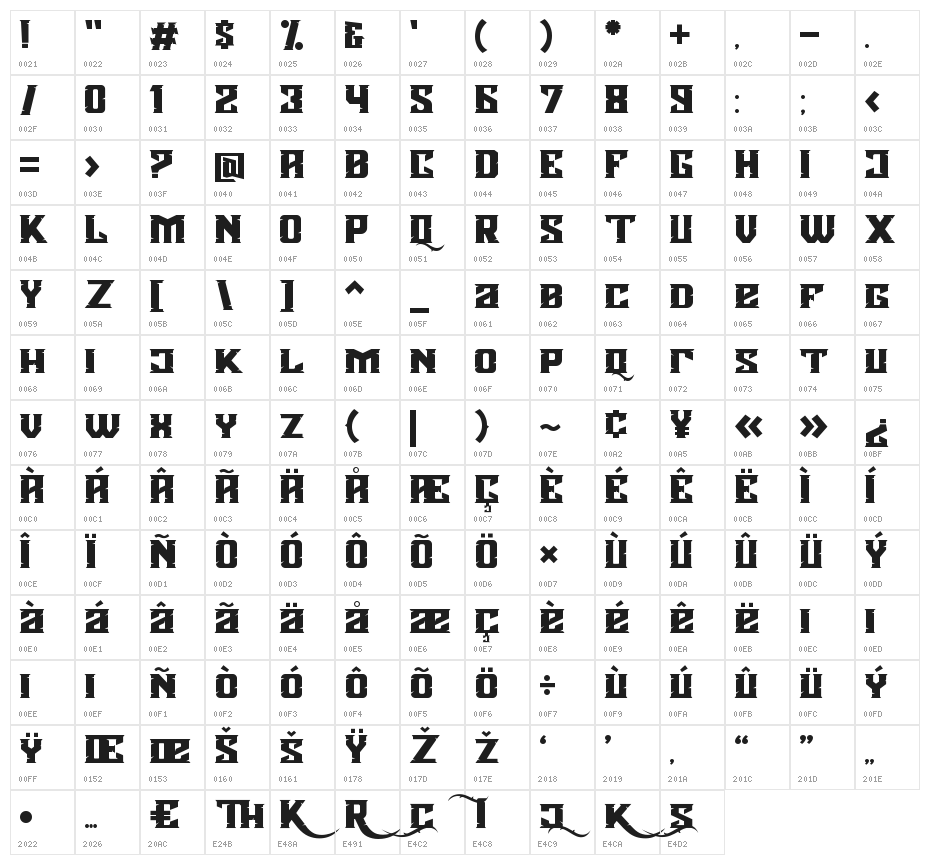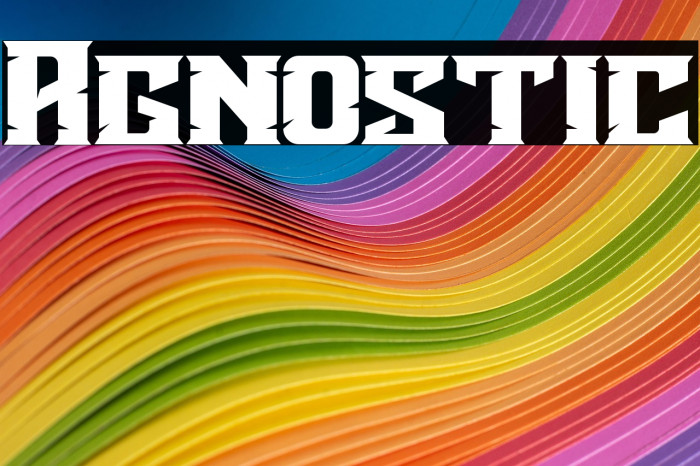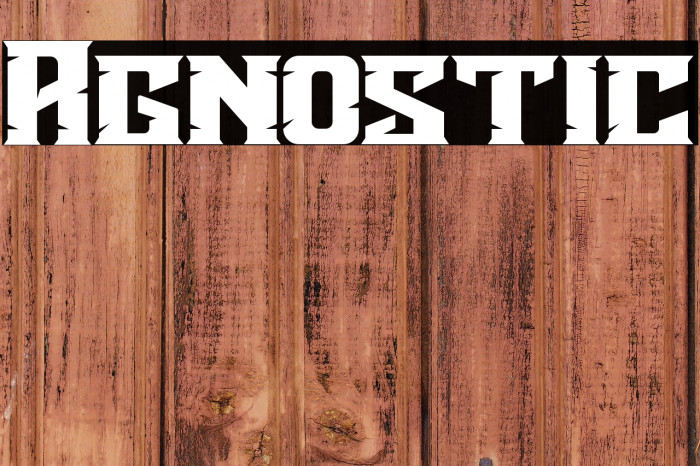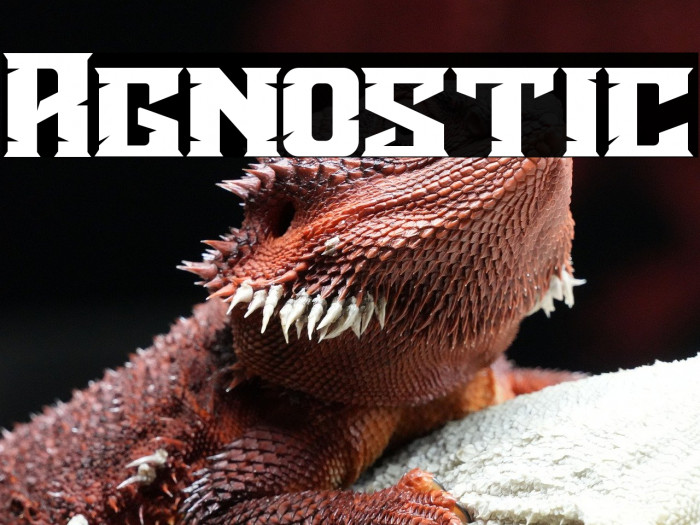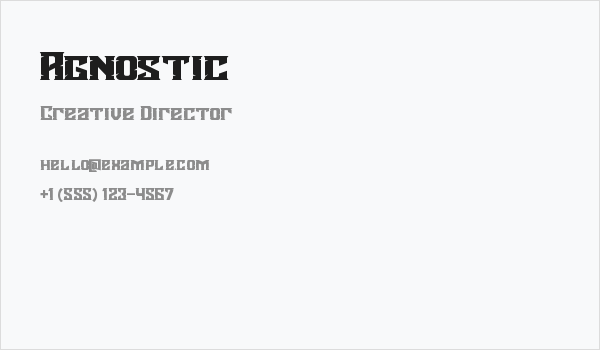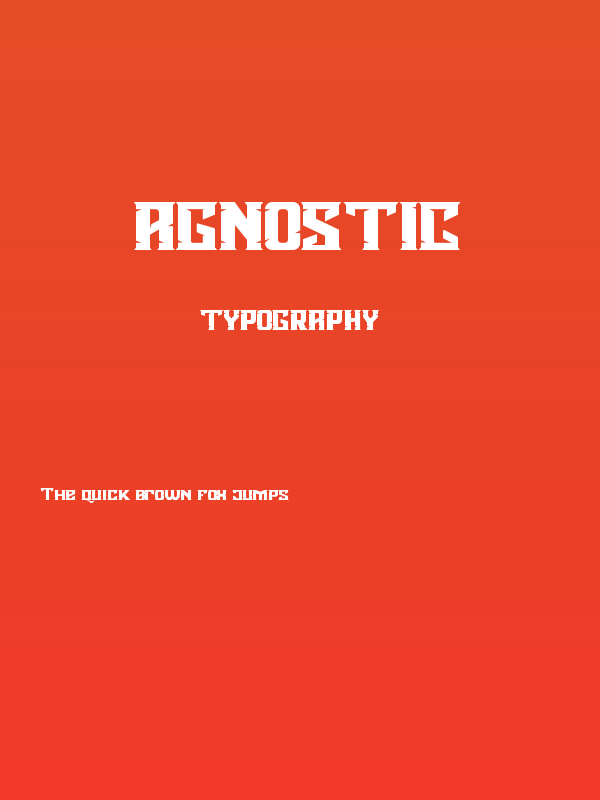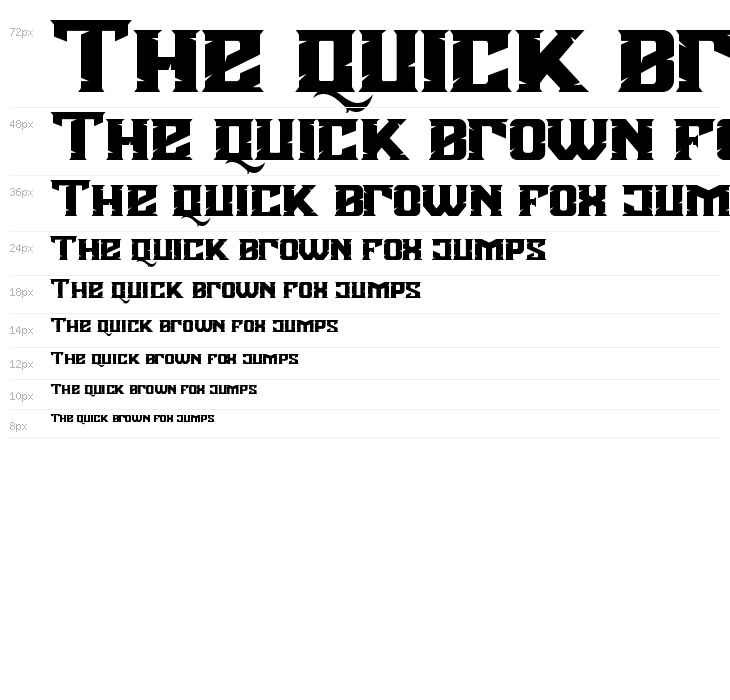
Agnostic Font
Agnostic Description
This font exhibits a bold and striking appearance, characterized by its sharp, angular edges and strong geometric shapes. The letters are heavily stylized, with a distinct Gothic influence that gives them a medieval, almost aggressive look. The uppercase and lowercase letters maintain a consistent style, with exaggerated serifs and a blocky structure. Numbers and special characters follow the same design principles, ensuring uniformity across all glyphs. The font's heavy weight and dramatic presence make it ideal for attention-grabbing designs.
| Proposed Projects | Ideal for projects requiring a dramatic and bold typeface, such as posters, album covers, or branding for edgy or alternative products. |